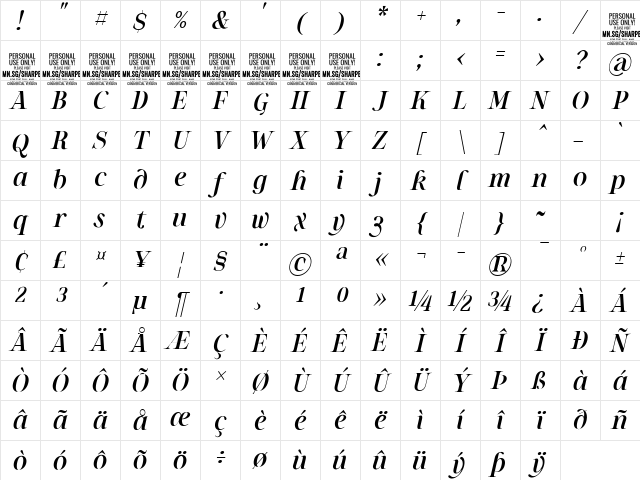
Sharpe PERSONAL Medium Italic Free Font
Sharpe PERSONAL Medium Italic
Foundry: Mans Greback
Designer: Mans Greback
Design Context for Sharpe PERSONAL
Sharpe PERSONAL is a composed and adaptable typeface that performs quietly and consistently across a wide range of design contexts. The slanted form adds forward momentum and visual energy.
Pro Tip: Use Sharpe PERSONAL for emphasis, pull quotes, and subheadings where its slanted energy can add rhythm to the layout.